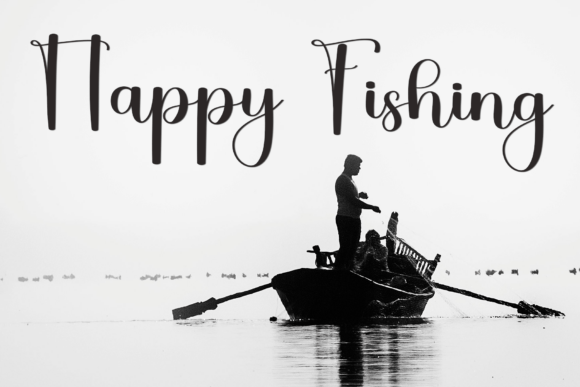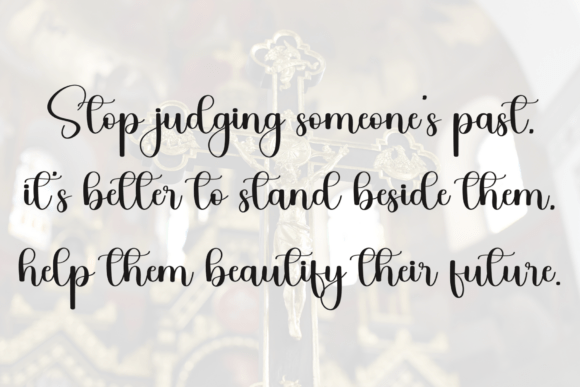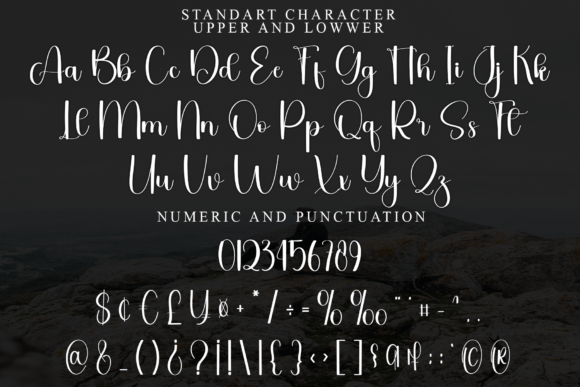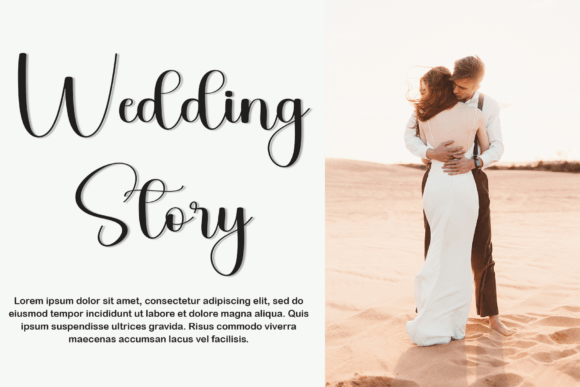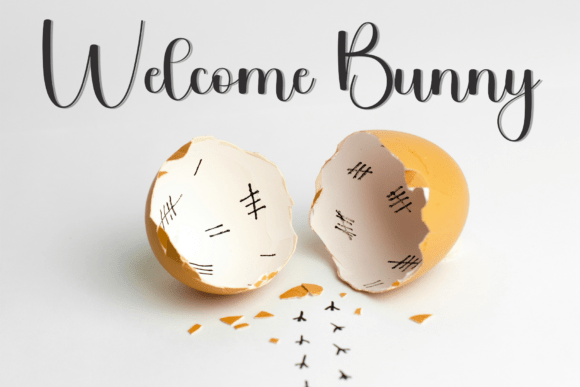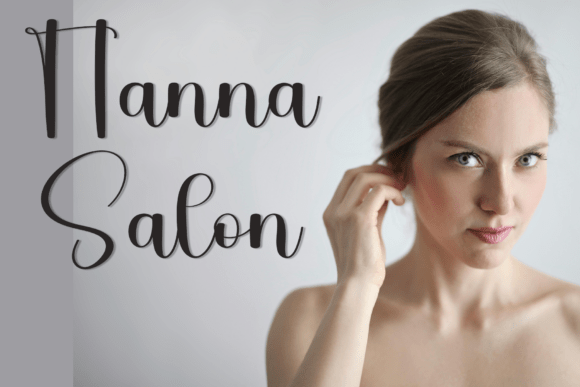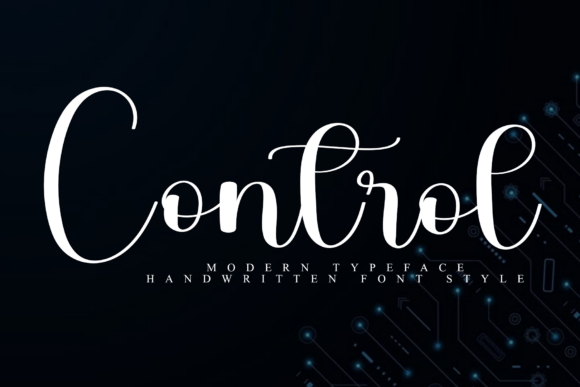
Discover the Unique Charm of Control Font: Elevate Your Designs with Its Soft and Versatile Style
In the world of typography, fonts play a crucial role in conveying messages, evoking emotions, and enhancing the aesthetic appeal of designs. Among the myriad of fonts available, Control Font stands out with its soft, unique touch and distinctive strokes, making it a valuable asset for designers, crafters, and creative professionals. In this article, we’ll delve into the features, benefits, and applications of Control Font, exploring how it can elevate your designs and make them more engaging for your audience.
The Distinctive Character of Control Font
Control Font is a beautifully crafted typeface that boasts a unique and eye-catching appearance. Its soft, rounded edges and distinctive strokes give it a special character that sets it apart from more traditional fonts. This distinctive style makes Control Font not only visually appealing but also highly versatile, suitable for a wide range of design projects, crafts, and creative works.
One of the key features of Control Font is its extensive character set. With a variety of characters at your disposal, you can experiment with different combinations to create unique and captivating text designs. Whether you’re working on a logo, a poster, a website, or any other design project, Control Font offers the flexibility to express your creativity and bring your vision to life.
Versatility and Compatibility
Control Font is designed to be compatible with a wide range of applications and platforms. Whether you’re working on a Windows operating system or prefer open-source platforms, you can easily integrate Control Font into your design workflow. This compatibility ensures that you can use Control Font across different projects and collaborate with others without worrying about font compatibility issues.
The versatility of Control Font extends to its suitability for various products and design projects. From digital designs, such as websites and social media graphics, to print materials, like brochures and business cards, Control Font can enhance the visual appeal of your work. Its natural and soft style makes it an excellent choice for crafts, DIY projects, and handmade products, adding a personal touch to your creations.
Control Font offers numerous benefits for designers and crafters looking to elevate their work. Here are some of the advantages of incorporating Control Font into your design projects:
- Unique Aesthetic: Control Font’s distinctive style adds a unique touch to your designs, making them stand out in a crowded creative landscape.
- Versatility: With its extensive character set and compatibility with various applications, Control Font can be used across different projects and platforms.
- Emotional Connection: The soft and natural style of Control Font can evoke emotions and create a connection with your audience, making your designs more impactful.
- Time-Saving: Control Font’s high-quality design and extensive character set save you time and effort in creating custom typography.
Applications of Control Font
The applications of Control Font are diverse and widespread. Here are some examples of how you can use Control Font in your design projects:
- Graphic Design: Use Control Font in logos, posters, flyers, and other graphic design projects to add a unique touch.
- Web Design: Control Font can enhance the visual appeal of your website, making it more engaging for visitors.
- Crafts and DIY Projects: Add a personal touch to your handmade products, such as cards, invitations, and crafts.
- Social Media Graphics: Use Control Font to create eye-catching social media graphics, such as Facebook posts, Instagram stories, and Twitter headers.
Control Font is a beautiful and versatile typeface that can elevate your designs and make them more engaging for your audience. Its unique aesthetic, extensive character set, and compatibility with various applications make it an excellent choice for designers, crafters, and creative professionals. Whether you’re working on a graphic design project, a craft, or a DIY project, Control Font can add a special touch, making your work stand out. Explore the possibilities of Control Font and discover how it can enhance your creative endeavors.